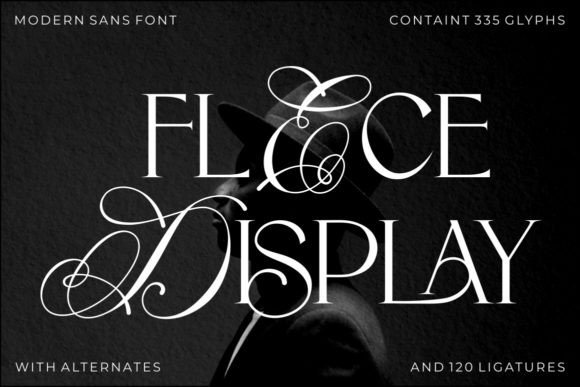
Adorn your designs with Flece Display – Modern Sans Font, a typographic masterpiece that harmoniously blends modern style and timeless elegance. Its meticulously crafted calligraphy and sans serif styles, seamlessly intertwined, offer a captivating fusion of luxury and contemporary aesthetics. Designed by the visionary putracetol, Flece Display is a font of unparalleled versatility, effortlessly adapting to diverse design projects.
Step into a realm of creative possibilities as you witness Flece Display transform logos, titles, book covers, headlines, magazines, and wedding invitations into stunning works of art. Whether you seek a touch of sophistication or an explosion of visual impact, this font delivers, leaving an indelible mark on your designs.
With Flece Display, you're not just downloading a font; you're embarking on a journey of aesthetic exploration, where creativity knows no bounds. Its calligraphy style exudes a sense of timeless elegance, while the sans serif style embodies the spirit of modernity. Together, they create a symphony of visual intrigue that will elevate your designs to new heights.
Immerse yourself in a world where fonts come alive, where every letter tells a story, and every word captivates the senses. Flece Display is more than just a font; it's an experience, an expression of your unique artistic vision.